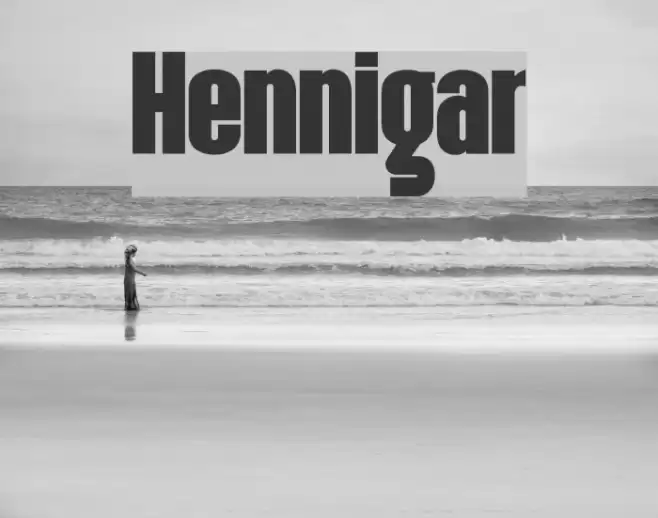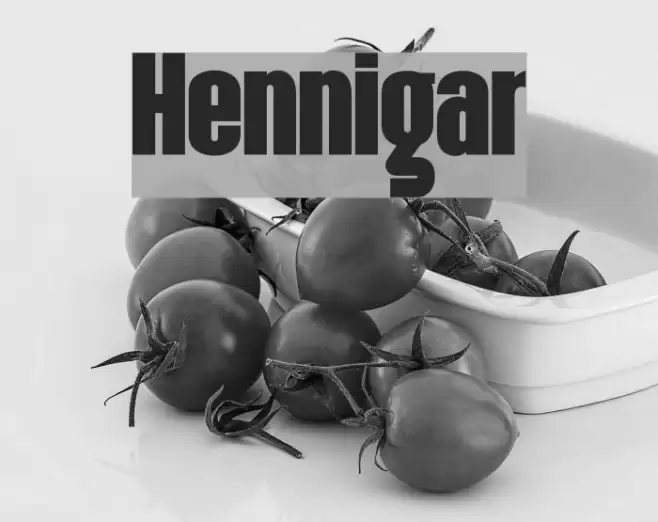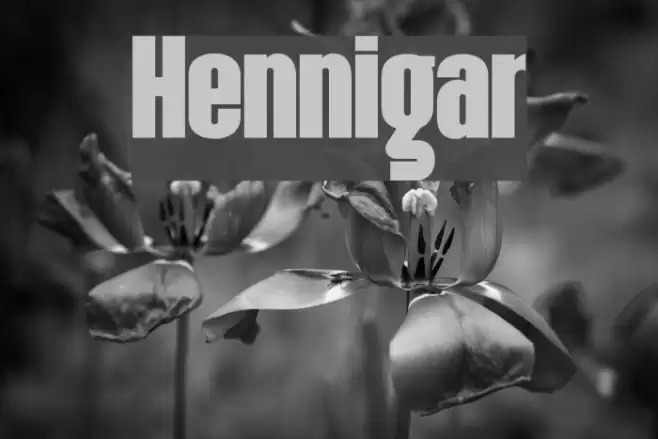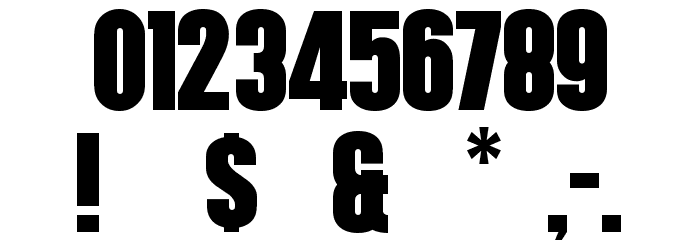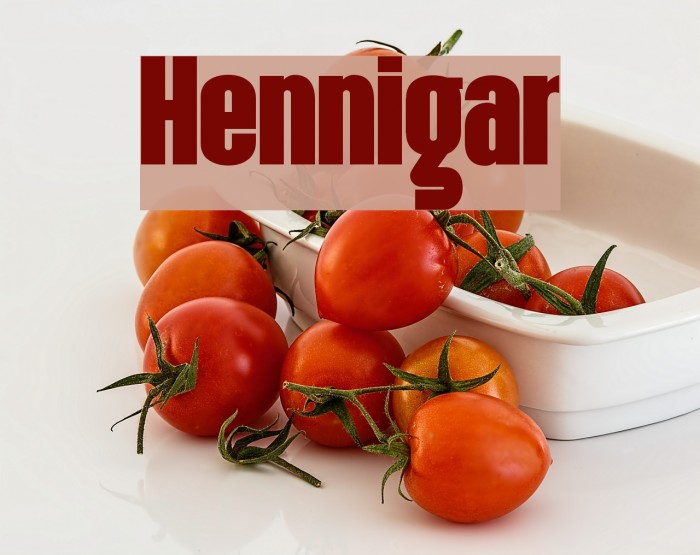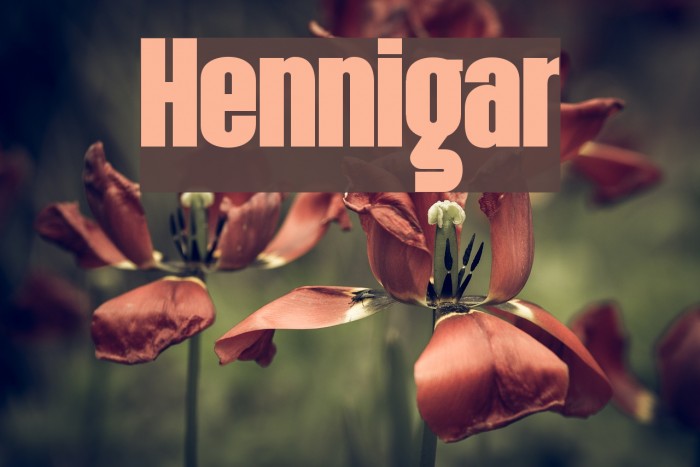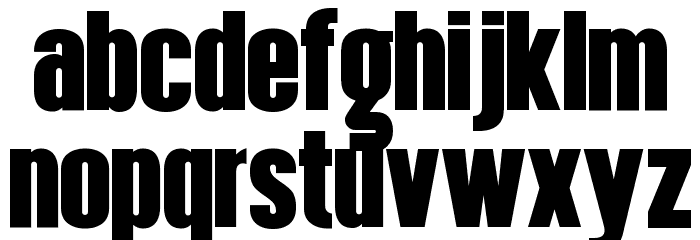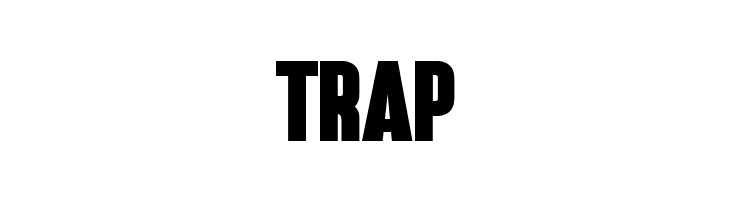
Hennigar Font
Hennigar Description
This bold and impactful font features thick, heavy strokes that create a strong visual presence. The uppercase and lowercase letters are designed with a consistent weight, giving a uniform appearance across all characters. The numbers and special characters maintain this robust style, ensuring readability and emphasis. The font's design is straightforward yet powerful, making it suitable for attention-grabbing headlines and titles. Its bold nature suggests a sense of authority and confidence, ideal for branding and advertising materials.
A bold, impactful font with thick strokes and strong visual presence from Uncategorized fonts.